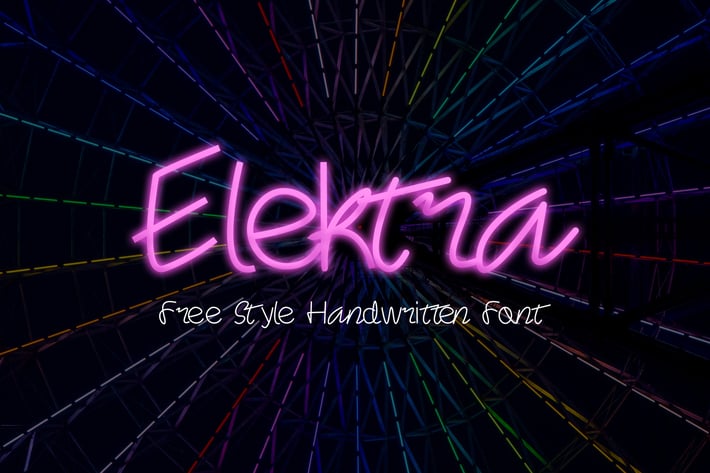
Elektra Handwritten Font
Elektra is a playful handwritten font. It's fee hand style comes with unique and memorable typeface. It's complete font available in Uppercase, lowercase, numeric and punctuation set. Play with this fun font!